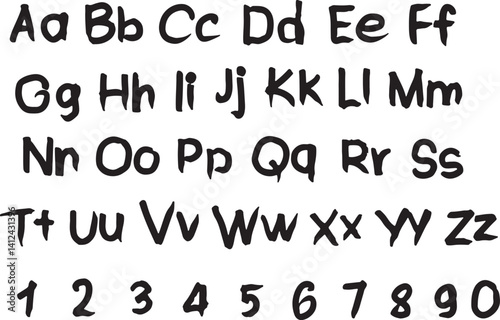
Icon set of handwriting letters in latin alphabet. Concept of scribble doodle paint typography calligraphy. Child hand drawn, kids handwriting font. Vector icons isolated on transparent background.